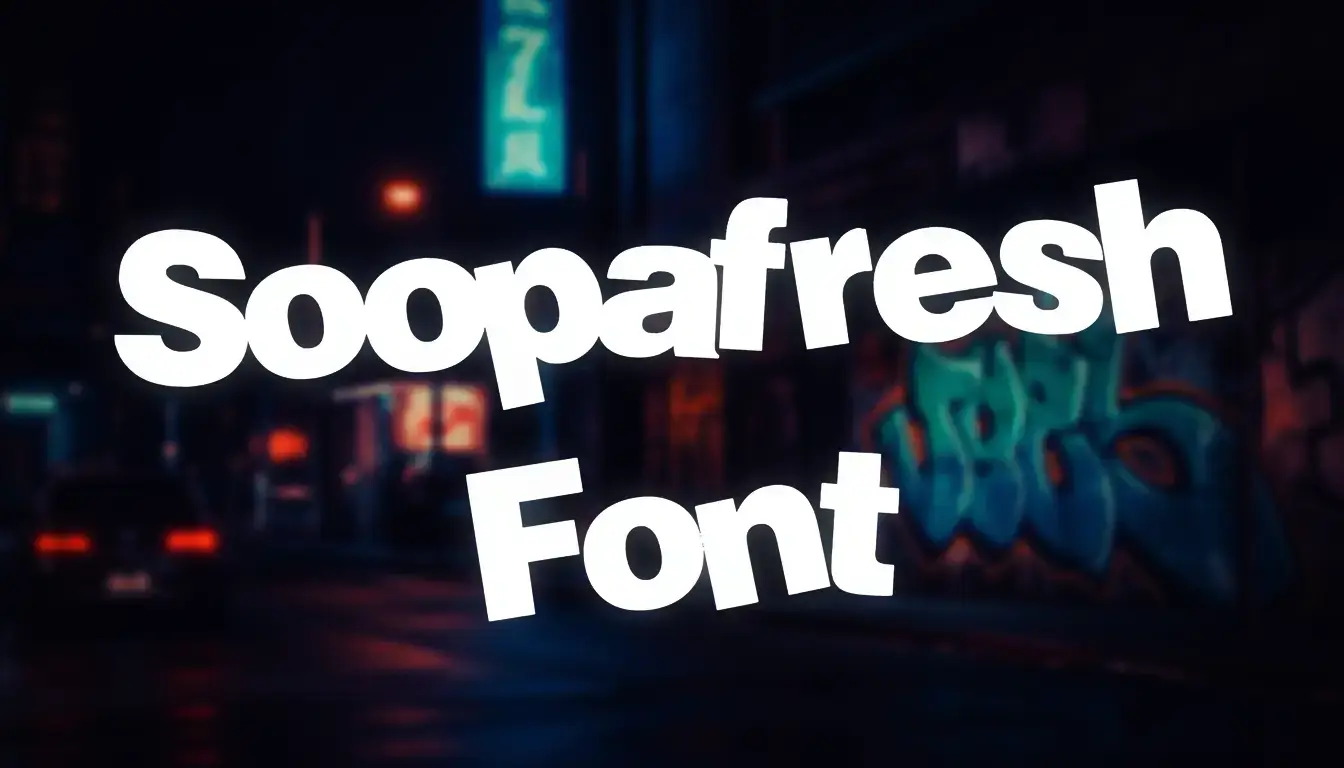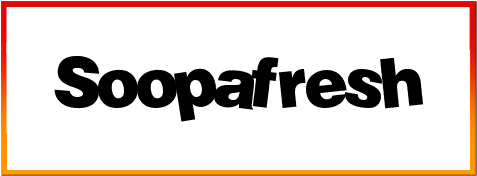
Soopafresh Font
Claes Källarsson designed Soopafresh, a classic, energetic Y2K-style distorted display font, and released it through the fuelfonts type foundry in 1997. Designers widely recognize it for its rhythmic, wavy alignment and chunky silhouettes that evoke an instant retro hip-hop or action-sports vibe.
Soopafresh is a fancy font. Bold and full of character, it's built to stand out rather than blend in. You can download it for free and test it with your own words in the preview above.
You get every letter from A to Z in both cases and all the numbers from 0 to 9, which means Soopafresh can handle full sentences, dates and prices. Common punctuation such as &, !, ? and @ is included as well. It also has the accented letters you need for Spanish, French, German, Portuguese and Italian.
Where Soopafresh Works Best
Designers usually reach for fonts like Soopafresh when they're making posters, logos and eye-catching headlines. Use it for one standout word or headline and let simpler fonts handle the rest.
Yes. Soopafresh includes the accented letters needed for Spanish, French, German, Portuguese and Italian, so it works for more than just English.